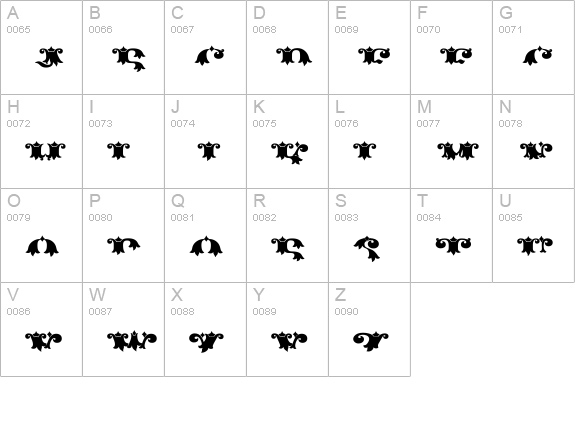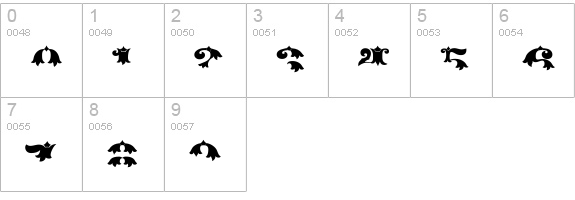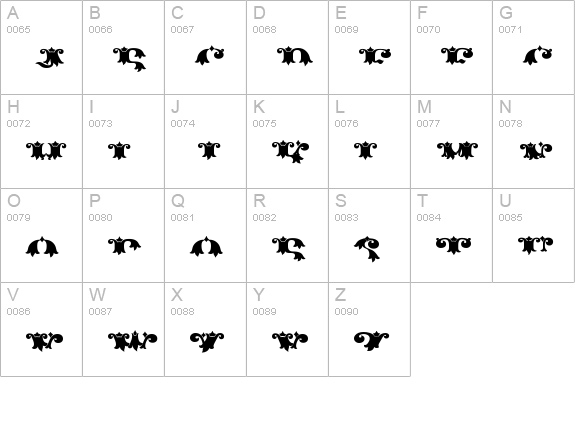
Gold Standard Fill Half font is a stunning display typeface that exudes elegance and sophistication. With its intricate details and sleek design, this font is perfect for adding a touch of luxury to your projects. The unique half-filled style gives it a modern twist, making it stand out from the crowd. The best part is that Gold Standard Fill Half font is completely free to download at FontsMarket.com. Whether you're working on a branding project, invitations, or any other design work, this font will elevate your creations to the next level. Don't miss out on the opportunity to enhance your designs with this exquisite typeface. Download Gold Standard Fill Half font today and let your creativity shine!